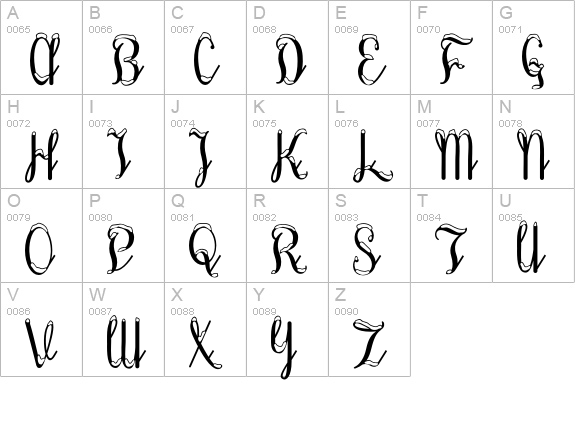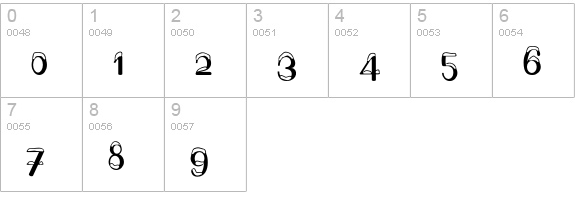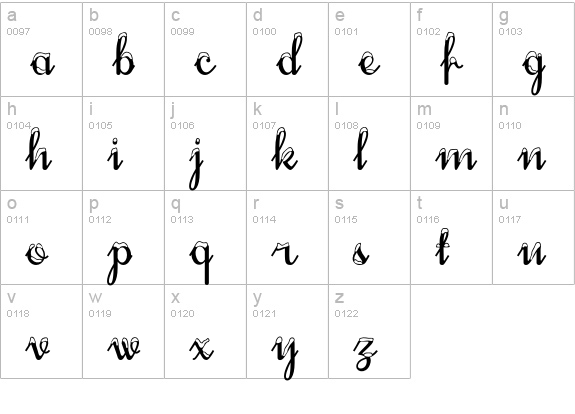
Snowhouse DEMO Font Details
Introducing Snowhouse DEMO font, a whimsical and enchanting typeface that will transport you to a winter wonderland. With its delicate and frosty letterforms, this font captures the essence of the snowy season, making it perfect for any project that needs a touch of magic. Designed with great attention to detail, Snowhouse DEMO font is both elegant and playful, combining the sharpness of icicles with the softness of freshly fallen snow. Its unique design allows for seamless integration into various creative projects, from holiday cards and invitations to branding and packaging. Not only does Snowhouse DEMO font bring a sense of charm and wonder to your designs, but it also offers the added bonus of being free. Yes, you heard that right! This stunning font is freely available to download at FontsMarket.com, making it accessible to designers and enthusiasts alike. Whether you're creating a winter-themed poster, designing a cozy logo, or crafting a seasonal social media post, Snowhouse DEMO font is the perfect choice to bring your ideas to life. Its versatility and exquisite details make it a standout font that will captivate your audience and evoke a sense of nostalgia and joy. So, don't miss out on the opportunity to add a touch of winter magic to your designs with Snowhouse DEMO font. Download it for free today at FontsMarket.com and let your creativity flourish in the snowy realm of typography.